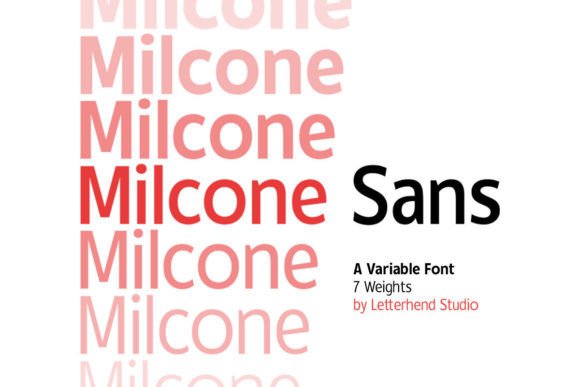
Welcome to the realm of typography, where Milcone Sans reigns supreme, a font family of exquisite artistry and unparalleled versatility. Crafted with meticulous attention to detail and tailored to elevate your digital creations, Milcone Sans is the ultimate choice for discerning designers and typographers seeking sophistication and clarity in their work.
With its commanding presence and crisp, clean lines, Milcone Sans effortlessly establishes a sense of authority and professionalism. Its variable font format, a testament to its adaptability, seamlessly adjusts to a spectrum of weights, from the delicate finesse of Hairline to the bold confidence of Black. This remarkable flexibility empowers you to modulate the font's impact, allowing it to harmoniously blend with your design vision, whether it's a captivating logo, a compelling presentation, or an immersive web experience.
Milcone Sans exudes an air of modernity, its sleek curves and sharp angles capturing the essence of the digital age. Its meticulously engineered letterforms ensure optimal legibility and clarity, even on high-resolution screens, making it the ideal font for captivating headlines, informative body text, and engaging user interfaces.
Beyond its technical prowess, Milcone Sans possesses an intangible allure, an emotional resonance that breathes life into your designs. Its subtle nuances and thoughtful details evoke a sense of elegance and sophistication, imbuing your creations with a touch of timeless charm. Whether you're crafting a personal branding project, designing a cutting-edge website, or creating marketing materials that demand attention, Milcone Sans will elevate your work to new heights of visual excellence.
Experience the transformative power of Milcone Sans, the font family that transcends the boundaries of ordinary typography. Embrace its versatility, harness its emotional impact, and unleash your creativity. Let Milcone Sans be your partner in creating digital masterpieces that captivate and inspire.